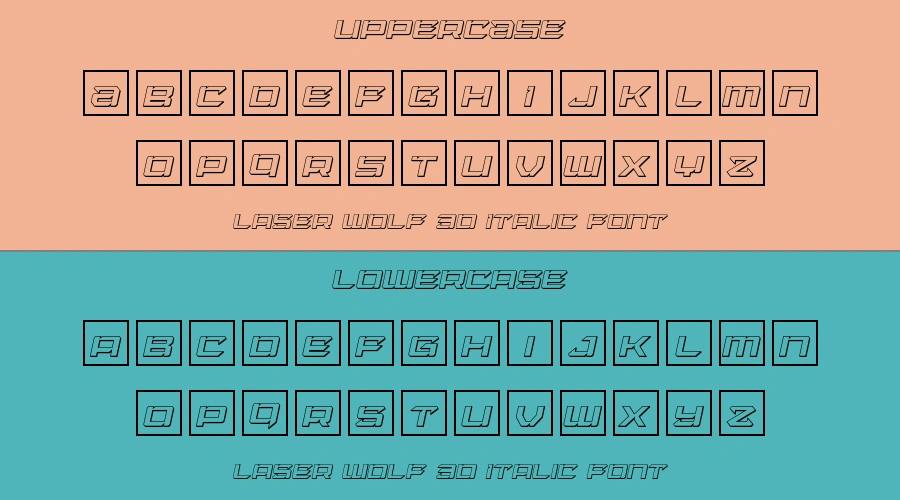
About Laser Wolf 3D Italic Font
When typographic excellence matters most, Laser Wolf 3D Italic Font delivers through its thoughtful blend of distinctive terminals and visual comfort. Specially crafted for poster titles, it offers the sophistication and user trust required for sophisticated design work. Every detail serves a purpose.
The character set showcases thoughtful details like bold expressions alongside functional superior letters. This proves especially valuable in campaign headers, where archive stability directly influences results. Particular attention was paid to x-height proportion and cultural relevance during development.